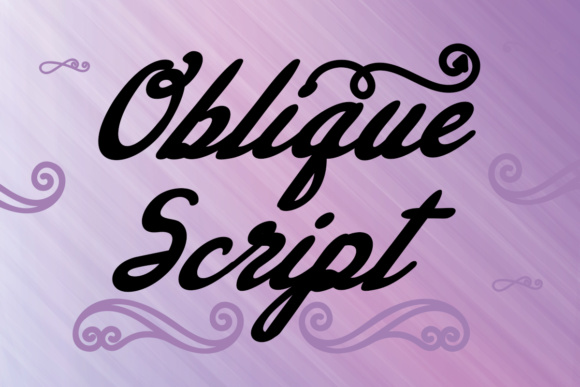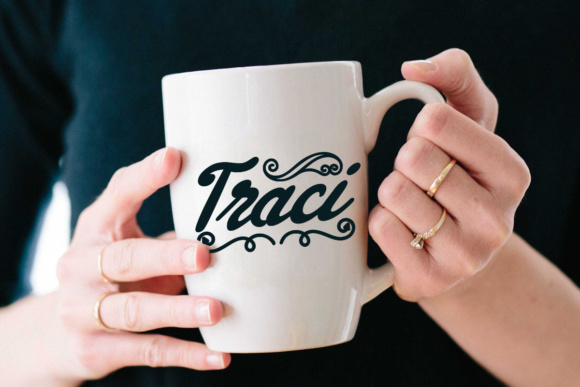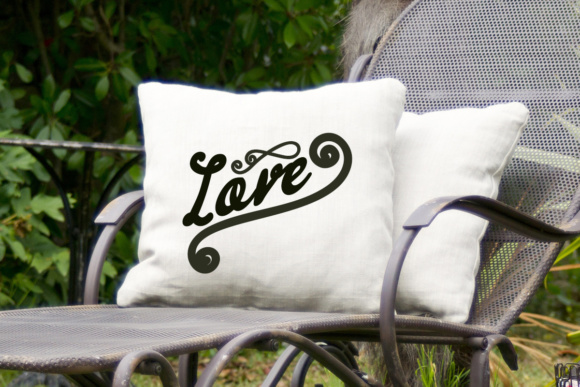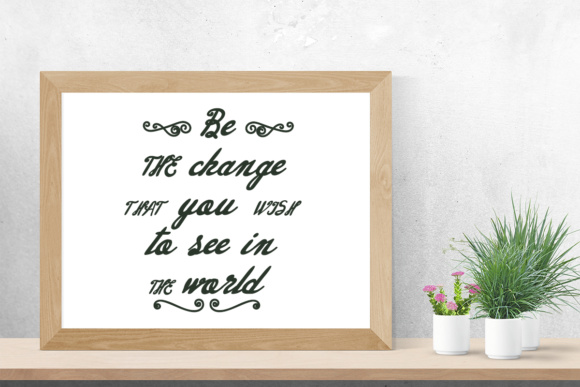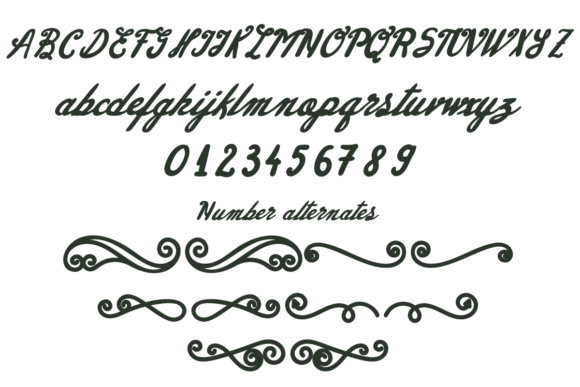
Oblique Script Font
About Oblique Script Font
The Oblique Script is a cool arts & crafts font that comes with additional swashes to make your crafting even more special.
It’s great to use for logos, t-shirts, mugs, pillows and decorations.